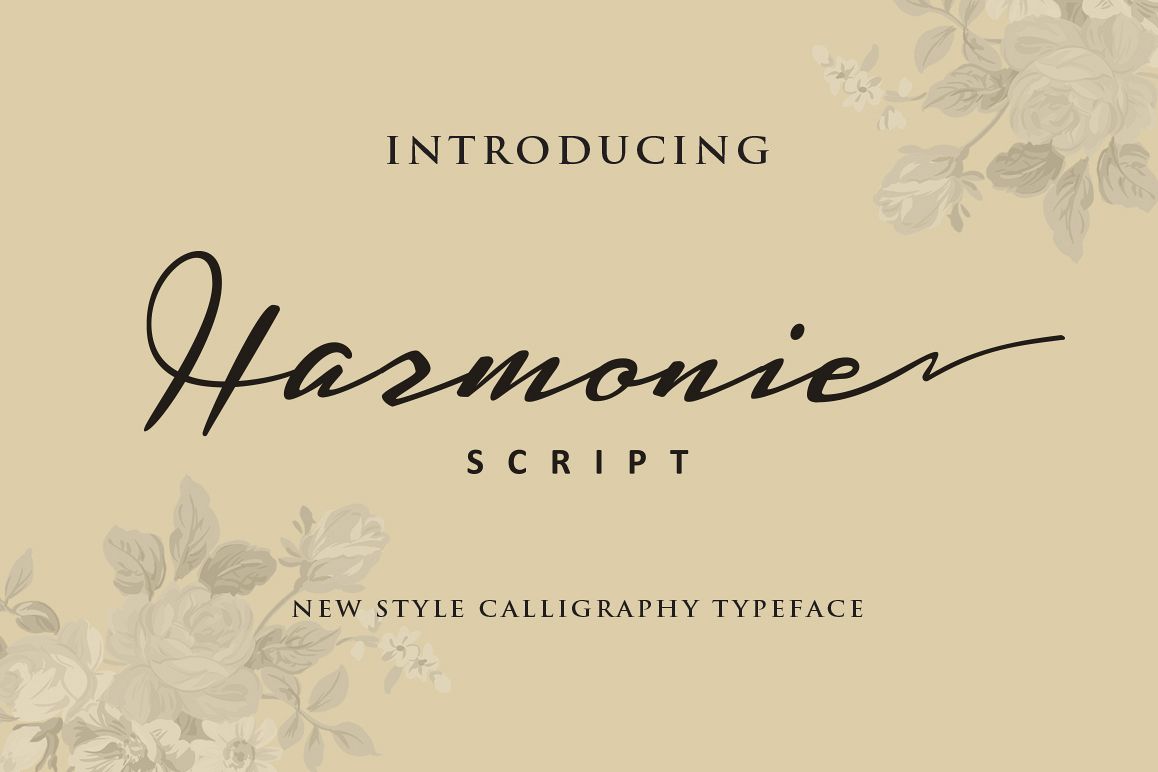
Harmonie Script
Introducing Harmonie Script
Harmonie Script is a new handwritten stylish copperplate calligraphy fonts, combines from copperplate to contemporary typeface, classic and elegant touch.Harmonie Script features 239 glyphs and 60 alternate character contain with opentype features. Stylistic alternates and Ligature.
Harmonie Script is suitable for Apparel Brand, any greeting cards, Painting design style, or any design that needs natural and personal touch. Mix and match the alternate characters to add an attractive message to your design.Features of Harmonie Script is;
• Standart ligatures
• Stylistic sets